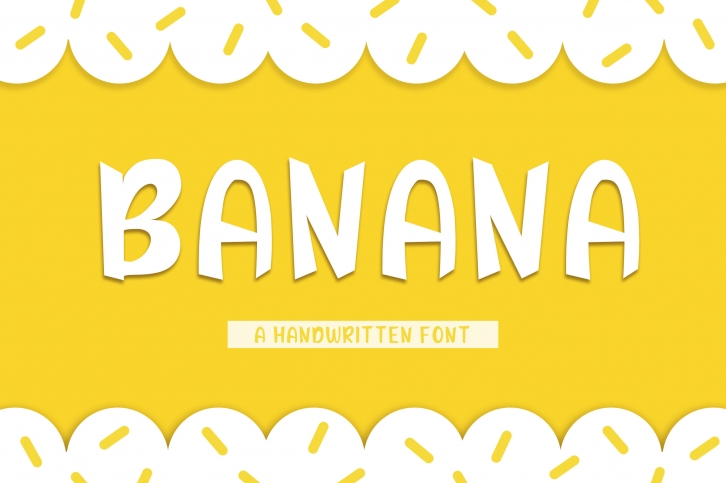
Banana is a fun and friendly handwritten font. Use it to turn any design idea into a true standout. Get inspired by its unique charm and create lovely designs.